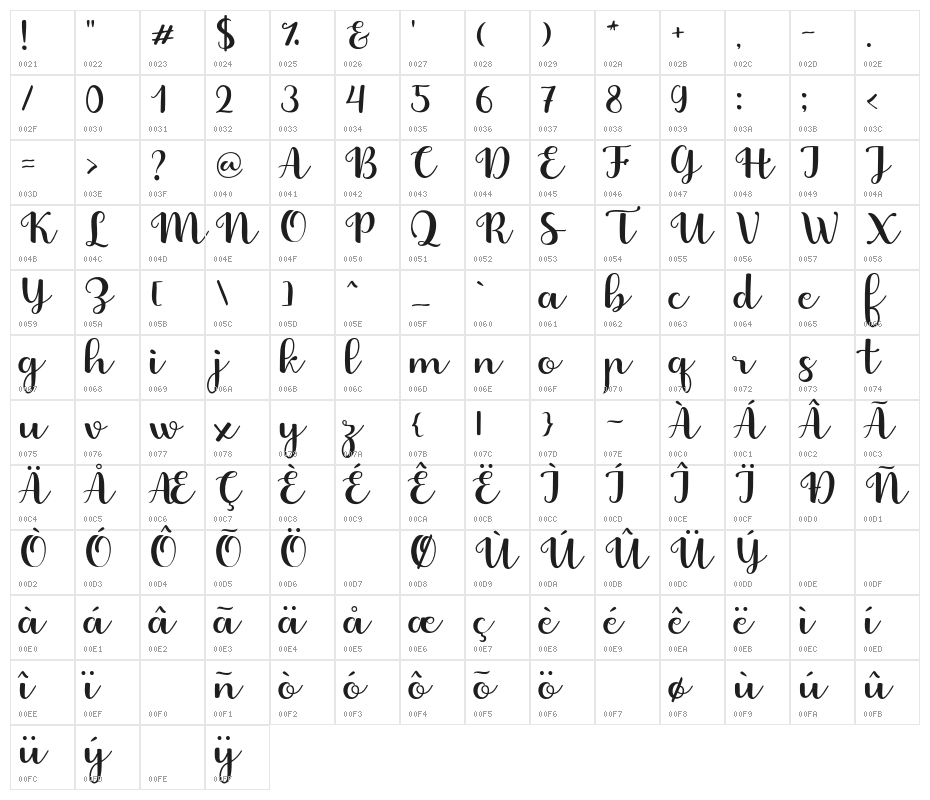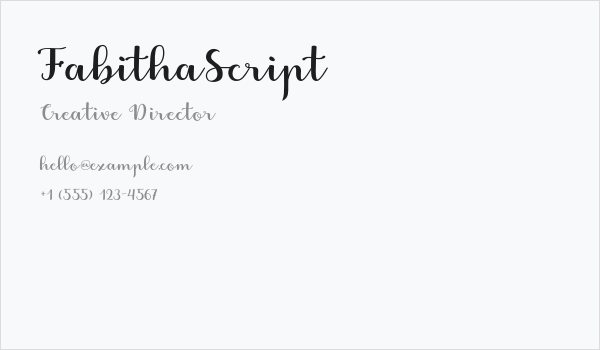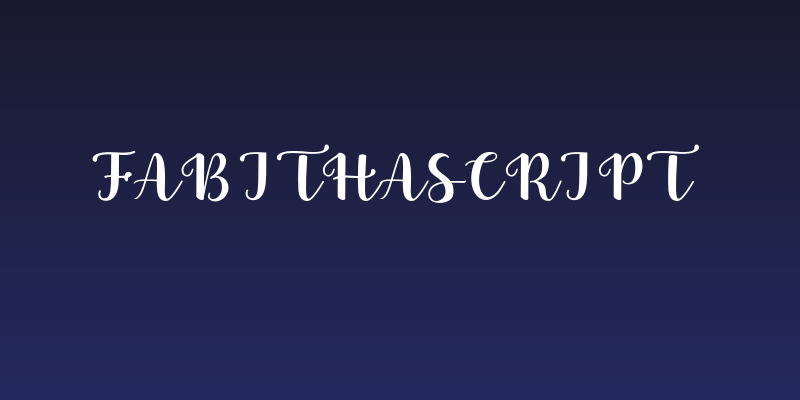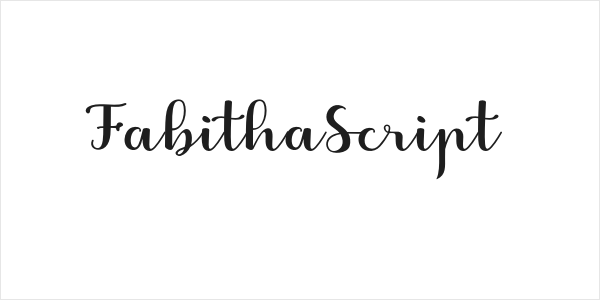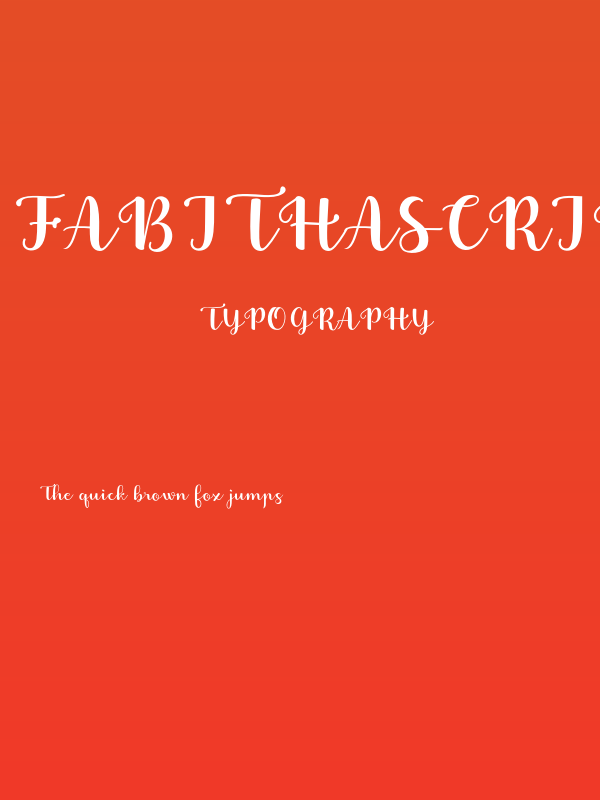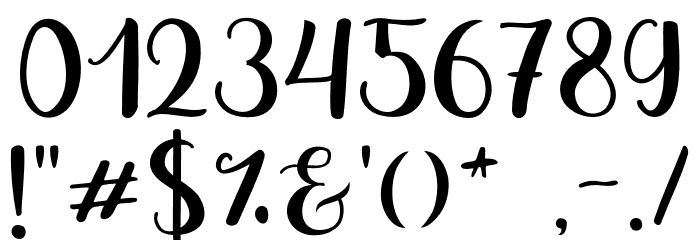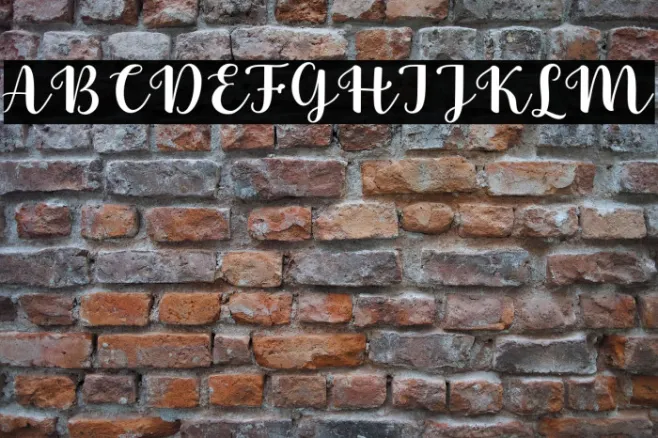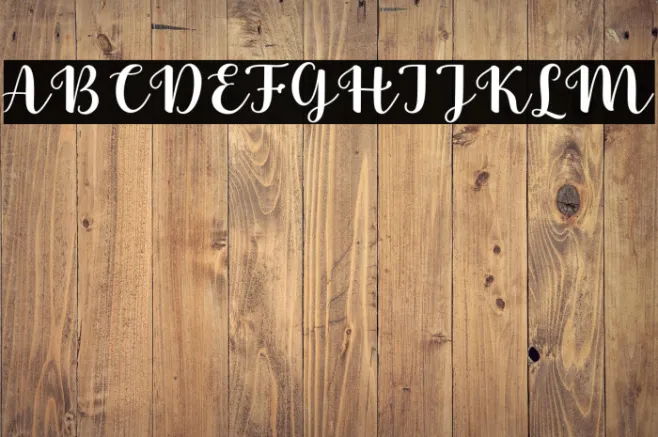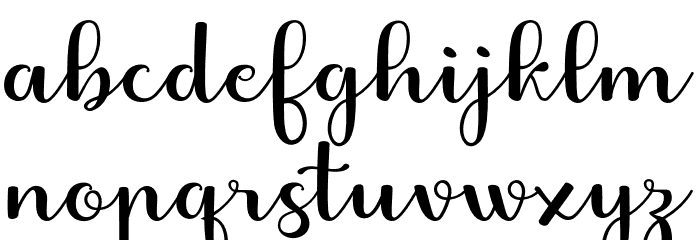
FabithaScript Font
FabithaScript Description
This font features a flowing, cursive style with elegant loops and smooth transitions between letters. The uppercase letters are bold and prominent, with a slight slant that adds a dynamic feel. Lowercase letters maintain a consistent flow, with some characters like 'g', 'j', and 'y' extending below the baseline, adding to the script's graceful appearance. The numerals are rounded and maintain the same fluidity, making them cohesive with the alphabet. Special characters are designed to match the overall aesthetic, ensuring a harmonious look throughout. This font is ideal for projects that require a touch of elegance and sophistication, such as invitations, branding, and decorative text.
| Use Case | Logos, Invitations, Decorative Text |
| Proposed Projects | Ideal for wedding invitations, elegant branding, greeting cards, and decorative signage. |